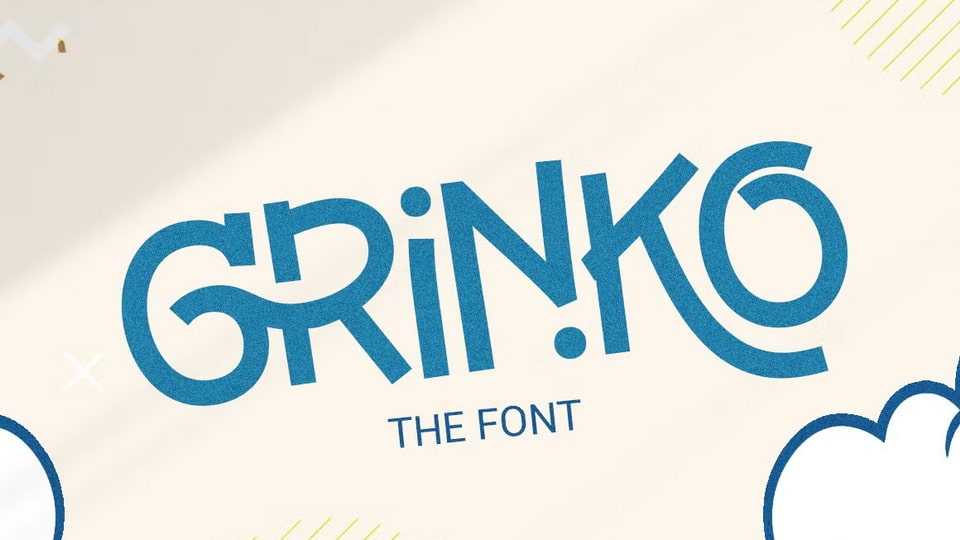
Download Grinko font, an elegant and casual retro decorative typeface. Each uppercase and lowercase letter has its own characteristics, plus some alternates and ligatures.